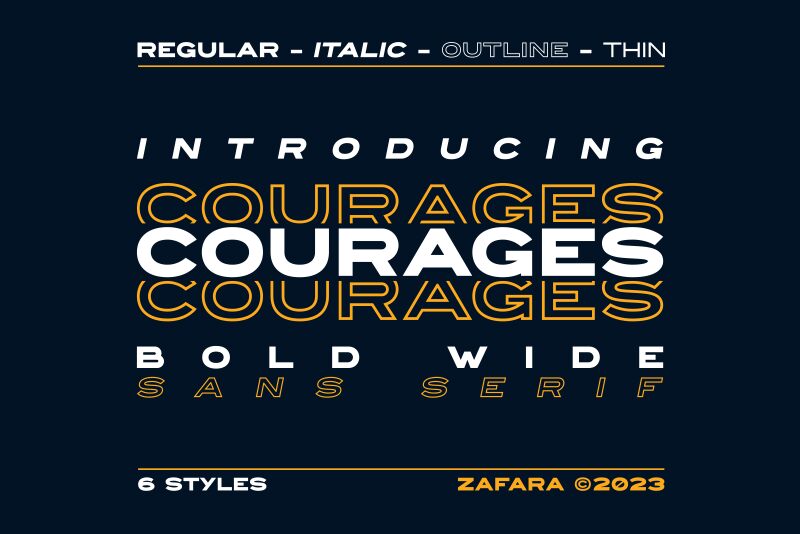
COURAGES DEMO
Courages font by Zafara Studios combines strong presence with rounded and expanded letters. A modern sans serif font with an industrial influence, it is a bold geometric creation that captivates and influences its viewers to read further. It features a clean design that adds sophistication and enriches your visual projects since it is above all else, created for entertaining display presentations.
This free expansion font is suitable for magazines covers and pages, posters, advertisements including banners and flyers, as well as logotypes. Use it in branding designs or titles of websites connected to architecture or home décor, packaging designs for instant meals or electronics products papers.